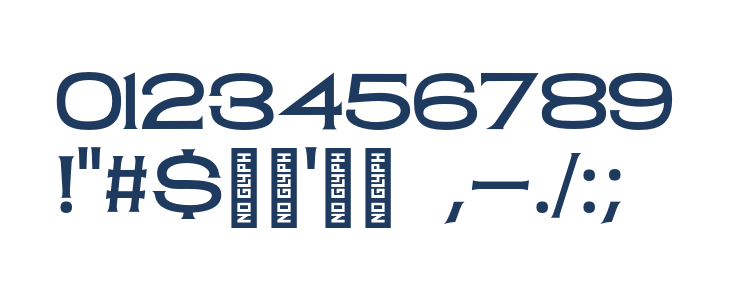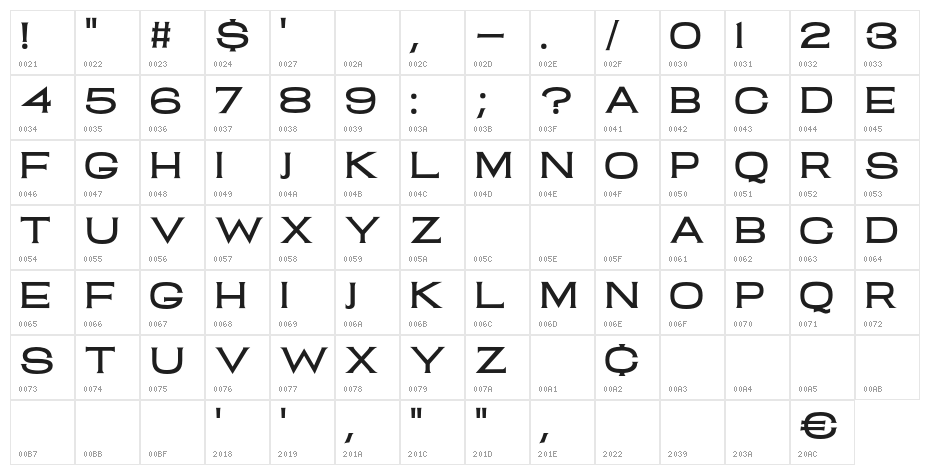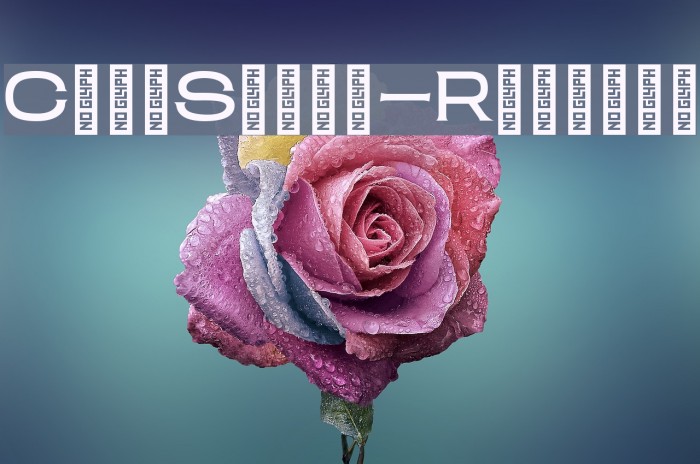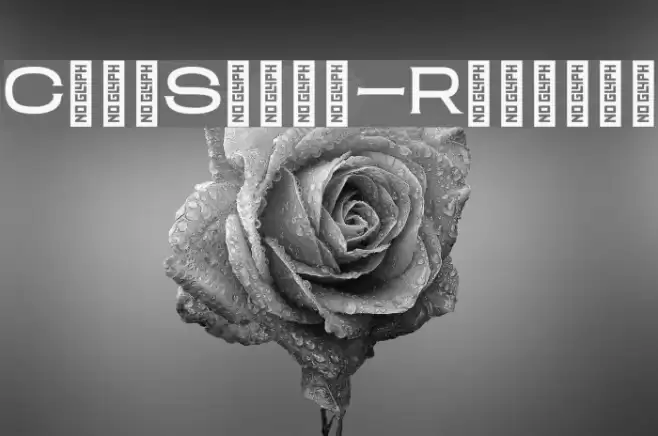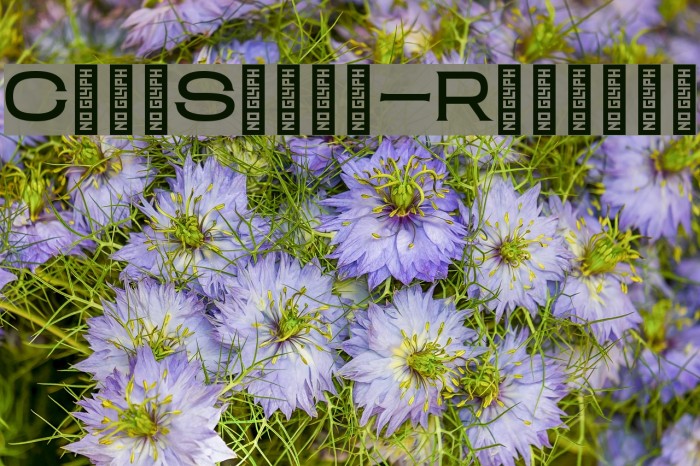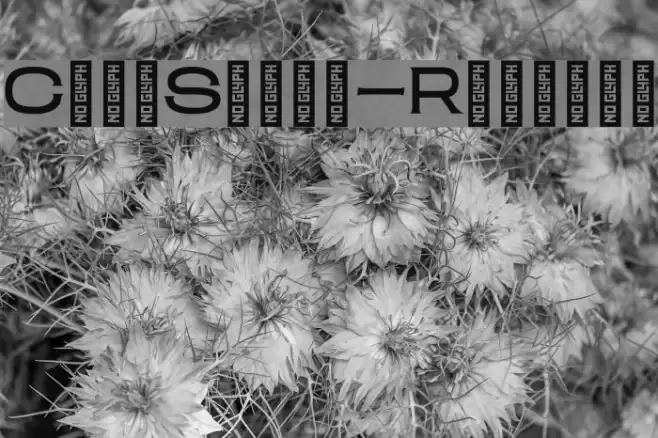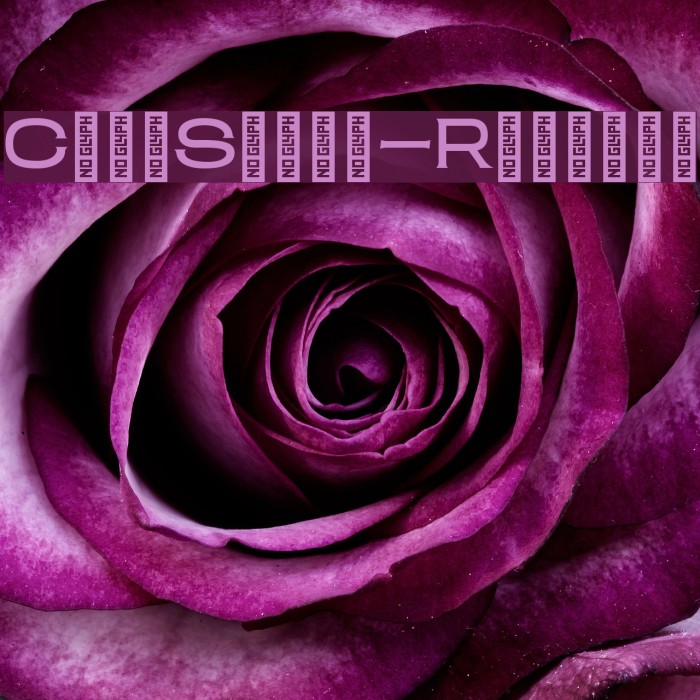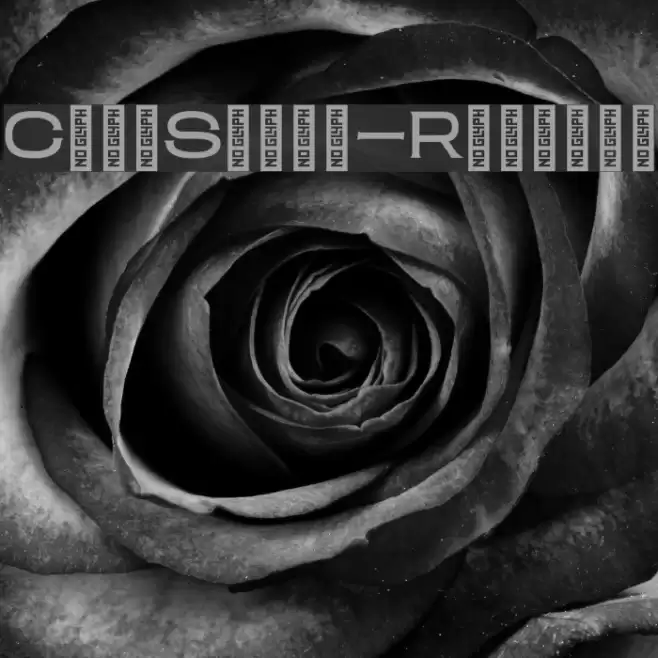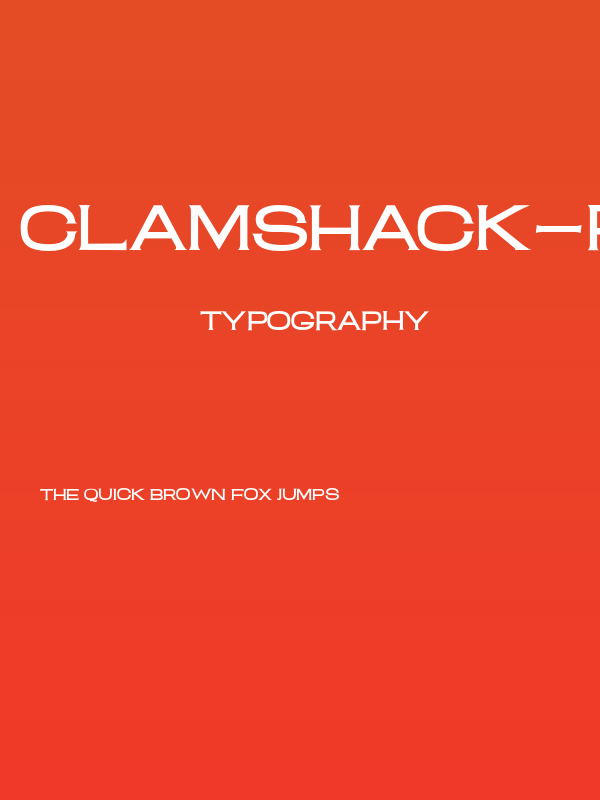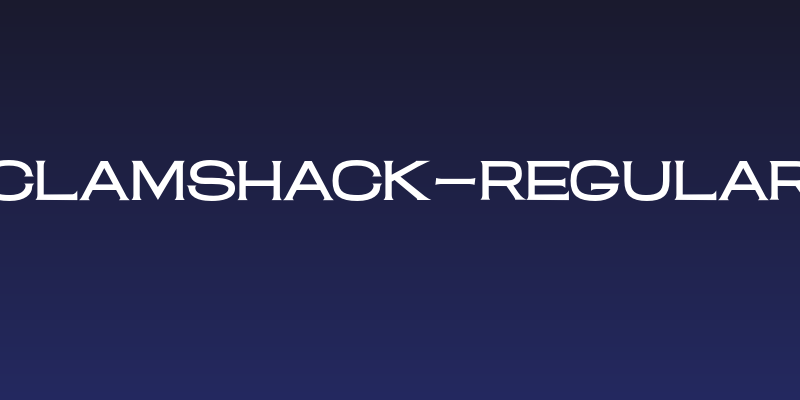
ClamShack-Regular Font
This font features a modern and sleek design with clean, geometric lines. The uppercase letters are bold and structured, giving a sense of strength and stability. The numerals are consistent with the overall style, maintaining a uniform thickness that complements the letterforms. Special characters are included, adding versatility for various uses. The absence of lowercase letters suggests a focus on impactful, uppercase typography. The font's design is ideal for creating a contemporary and professional look.
| Proposed Projects | Ideal for branding, headlines, posters, and signage where a strong, modern presence is desired. |